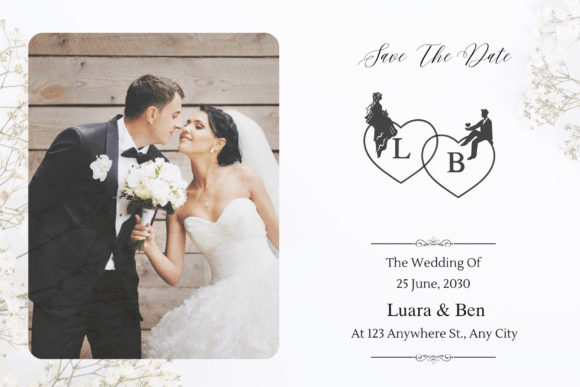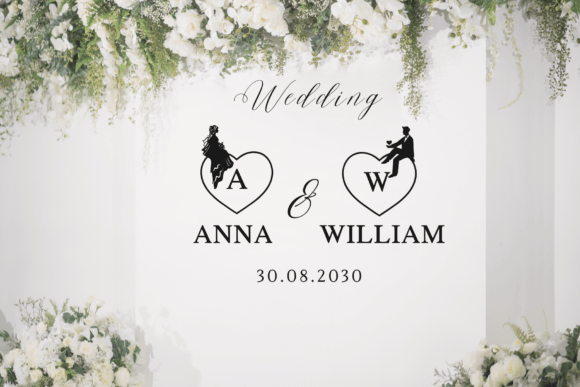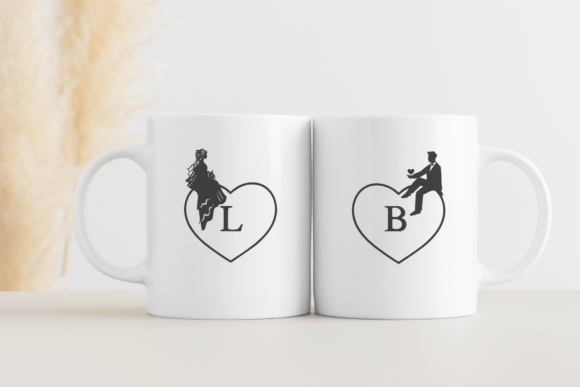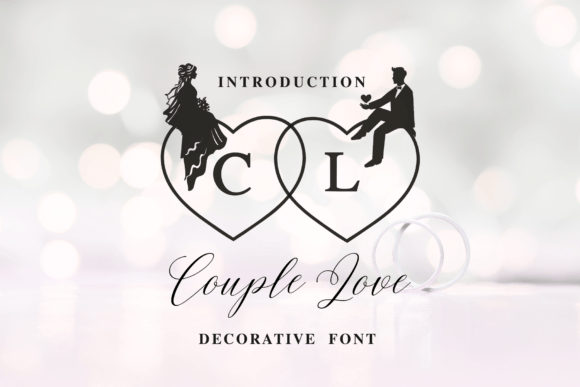
Introduction to Couple Love Monogram Font
Couple Love Monogram is a romantic monogram font featuring elegant heart frames paired with charming couple silhouettes.
Perfect for wedding invitations, engagement designs, Valentine gifts, logos, keepsakes, scrapbooking, and personalized projects Add a sweet, timeless, and romantic touch to any creation with these unique love-themed initials.
Key Features of Couple Love Monogram Font
Why Choose Couple Love Monogram Font?
Couple Love Monogram Font offers exceptional quality and versatility, making it a valuable addition to your design toolkit. Whether you’re creating for personal projects or commercial use, Couple Love Monogram Font delivers professional results.